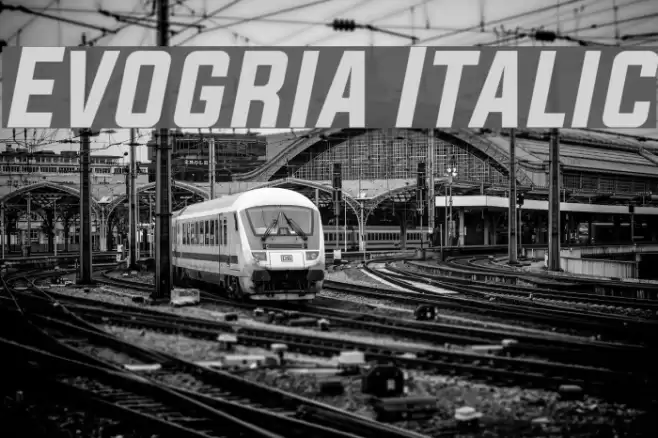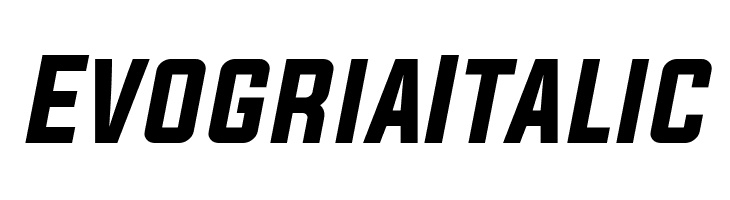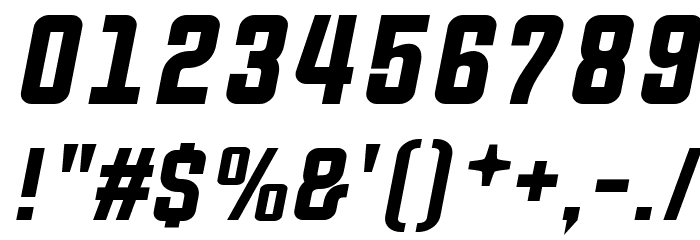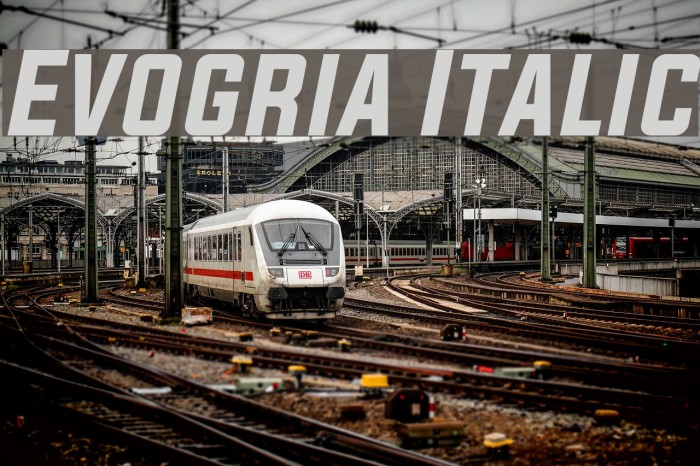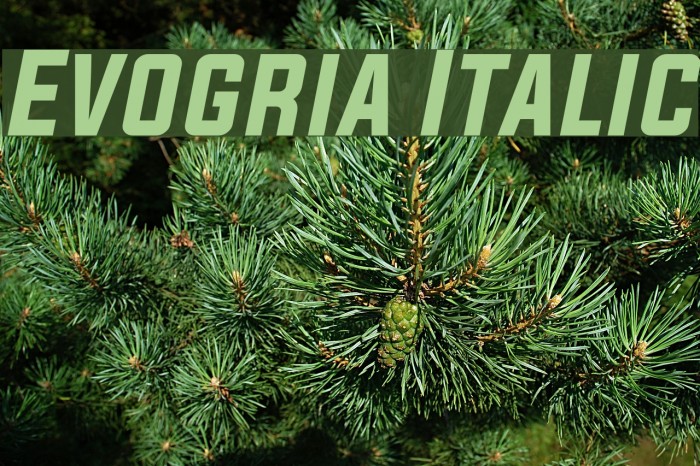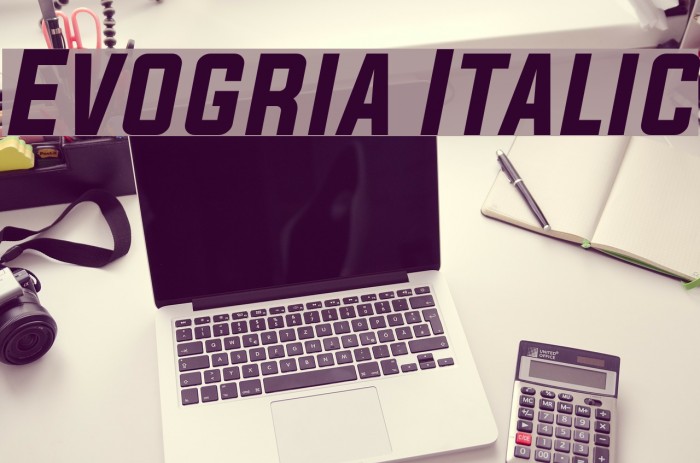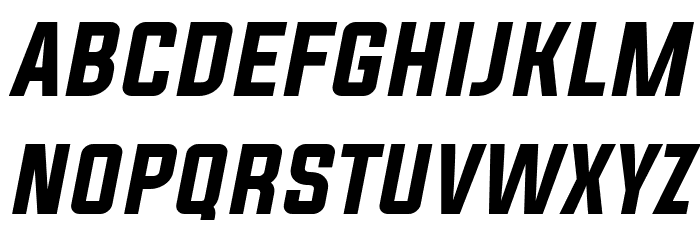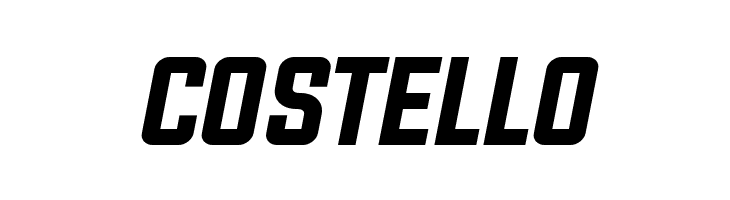
Evogria Italic Font
Evogria Italic Description
This font features a bold, italicized style with a modern and dynamic appearance. The characters are slightly slanted, giving a sense of motion and energy. The strokes are thick and consistent, providing a strong visual impact. The font maintains a uniform width across all characters, ensuring readability and balance. The overall design is sleek and contemporary, making it suitable for various digital and print applications. Its geometric structure and sharp angles contribute to a futuristic and professional look, ideal for branding and advertising.
A bold, italicized font with a modern and dynamic style from Uncategorized fonts.
- Proposed Projects: Ideal for branding, advertising, sports team logos, and dynamic headlines.
- Use Case: Headlines, Logos, Branding